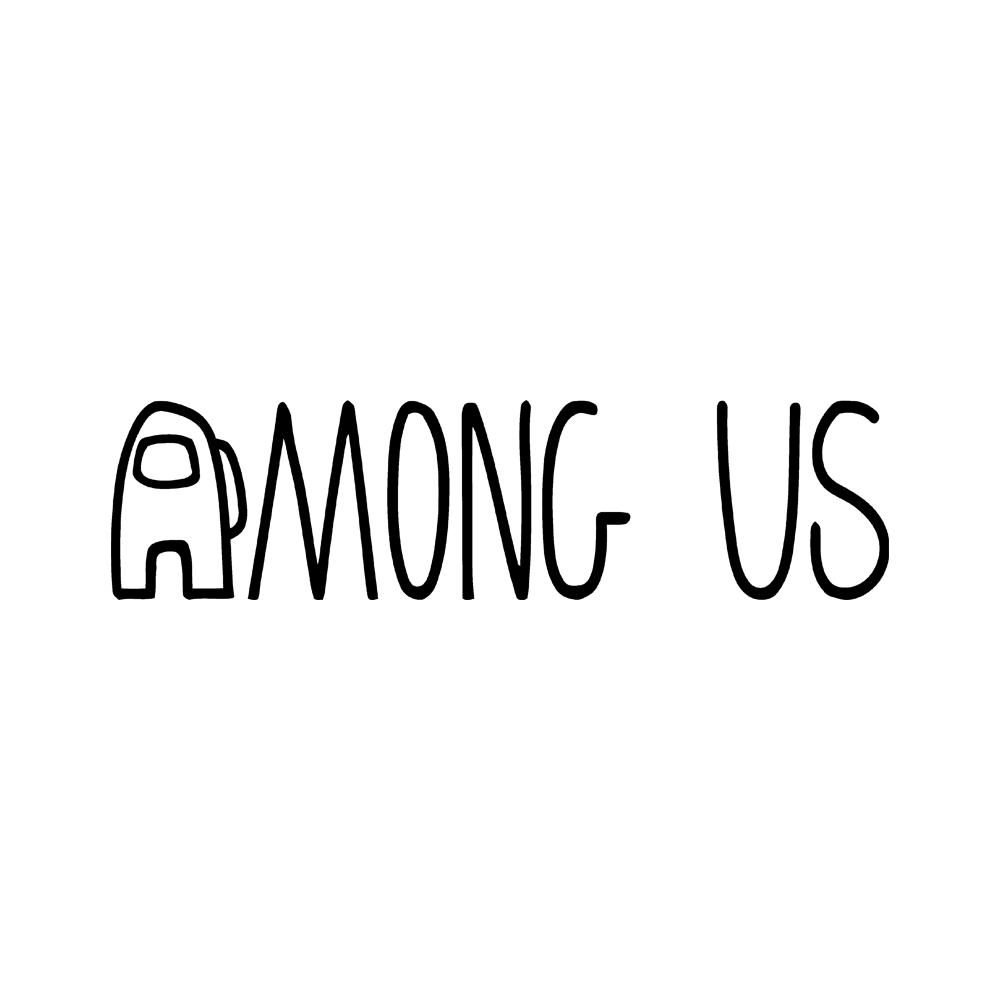
Among Us Font
The Among Us logo has most likely been hand lettered however Impostograph by JoviLikesMatchas looks very similar to the logo. The font is free for personal use.